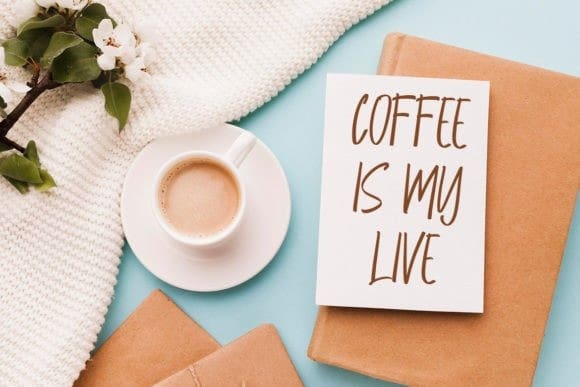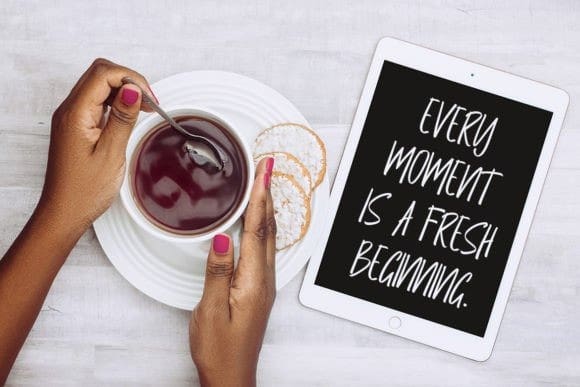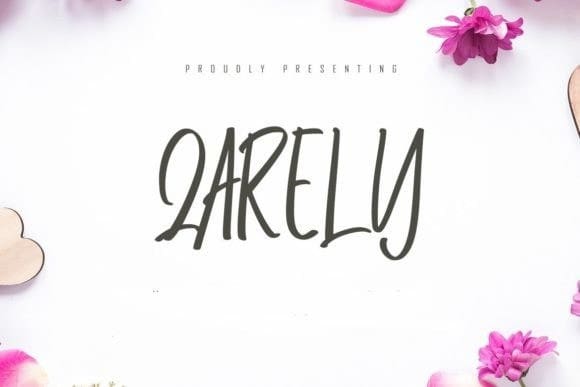
Qarely Font
Qarely Font is a playful and cool handwritten font. This font is perfect for children-themed designs, especially when combined with bright colors.